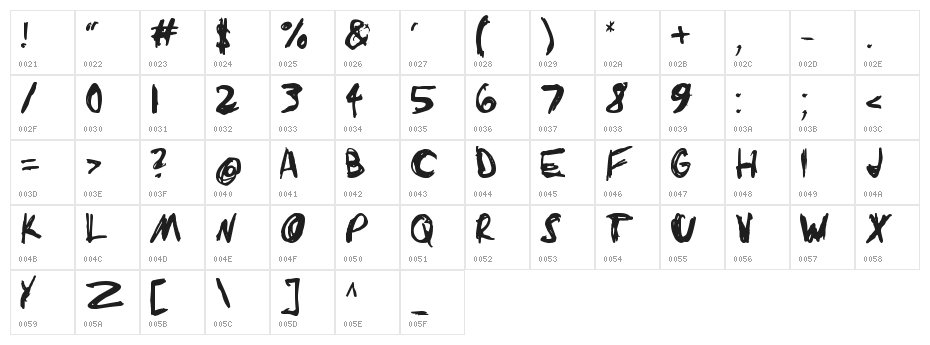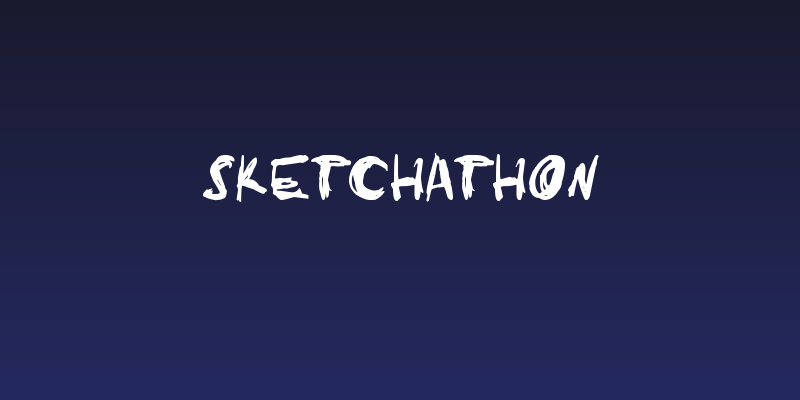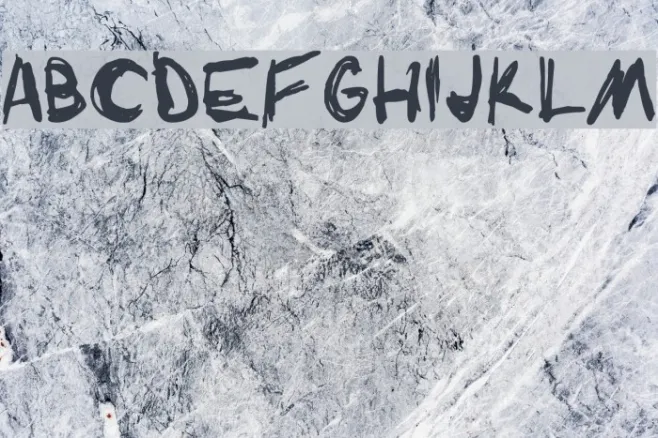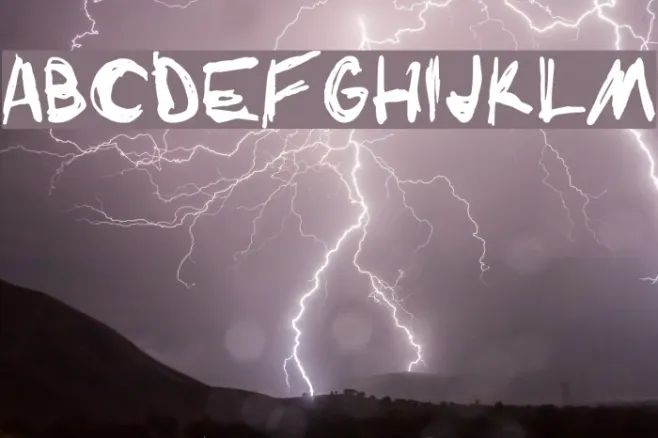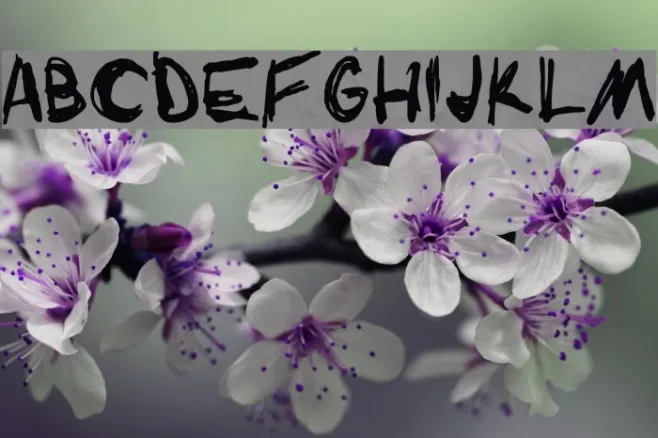
Sketchathon Font
Sketchathon Description
This font exhibits a bold, expressive style with a hand-drawn appearance, characterized by its irregular strokes and dynamic, energetic forms. The letters have a rough, textured look, suggesting a sense of spontaneity and creativity. The uppercase and lowercase characters maintain a consistent style, with exaggerated curves and angles that give the font a unique personality. The numbers and special characters follow the same artistic approach, making the font suitable for projects that require a personal, artistic touch. Its boldness and distinctive style make it stand out, perfect for capturing attention.
| Use Case | Headlines, Logos, Artistic projects |
| Proposed Projects | Ideal for artistic projects, posters, album covers, and creative branding. |